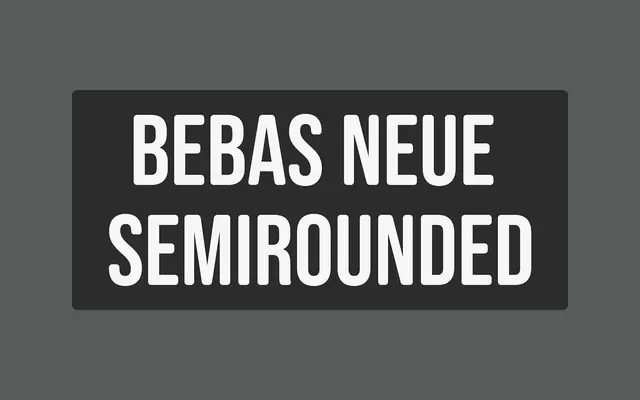
Bebas Neue SemiRounded
Bebas Neue SemiRounded specimen from Dharma Type
A semi-rounded variant of Bebas Neue that softens the original's sharp corners without sacrificing its tall, condensed structure.
Sitting between the original Bebas Neue and the fully rounded variant, this cut applies subtle corner rounding to introduce a warmer tone while keeping the same proportions intact. The result is an all-caps display face with enough rigidity for bold headlines and enough softness for contemporary branding work. It fills a specific niche within the Bebas family for designers who find the original too hard-edged but the fully rounded version too soft.
An all-caps geometric display face derived from Bebas Neue, with rounded corners softening the otherwise hard geometric structure. Categorised as display due to its tall, narrow proportions and headline-first orientation.